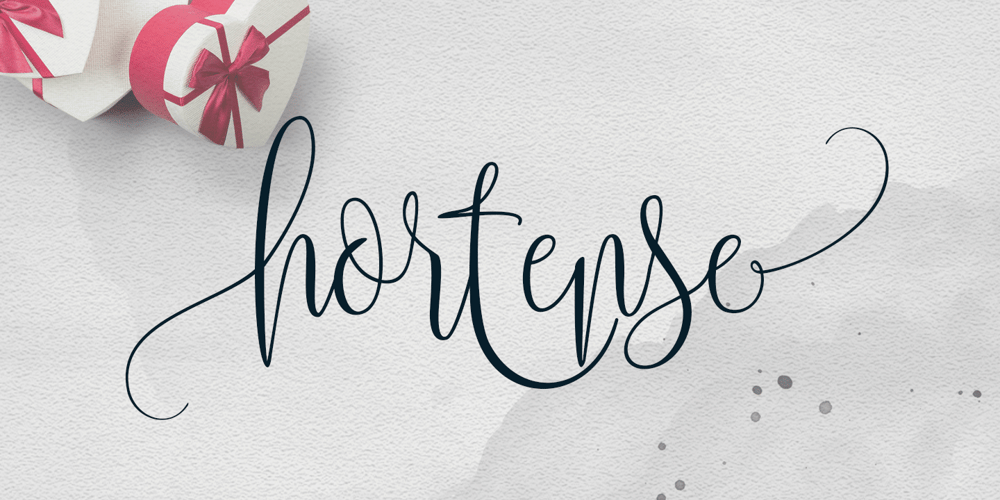
Hortense Font Family was designed by Roiyani Teungku and published by Artisan Studio. Hortense contains 1 styles and family package options. Hortense is a modern calligraphic font that was designed by handwriting. It has modern and unique forms and the writing style is very natural. The Features of this fonts are: Standart ligatures Discretionary ligatures Stylistic Alternates Stylistic sets Hortense has PUA Unicode (Private Use Areas) Hortense can be used for various purposes such as headings, logos, wedding invitation, t-shirt, letterhead, signage, labels, news, posters, badges etc. To enable the OpenType Stylistic alternates, you need a program that supports OpenType features such as Adobe Illustrator CS, Adobe Indesign & CorelDraw X6-X7.